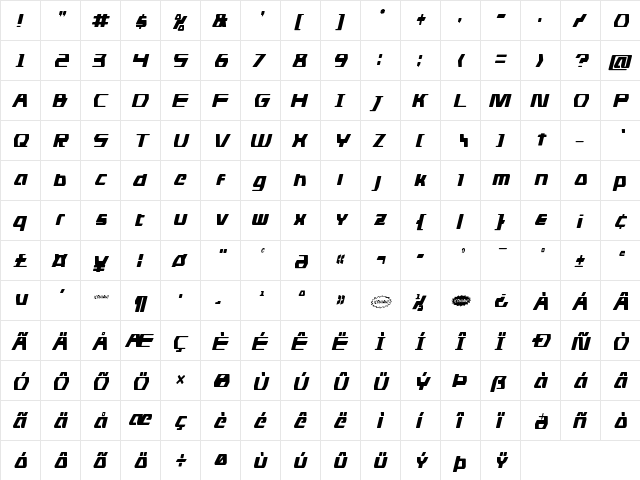
DS man Condensed Italic Font Preview
Design Context for DS man Condensed Italic Typeface
DS man Condensed Italic is a composed and adaptable typeface that performs quietly and consistently across a wide range of design contexts. The dynamic lean of this cut emphasises speed and emphasis in any layout. Its narrow stance lets it pack a punch even in space-constrained designs.